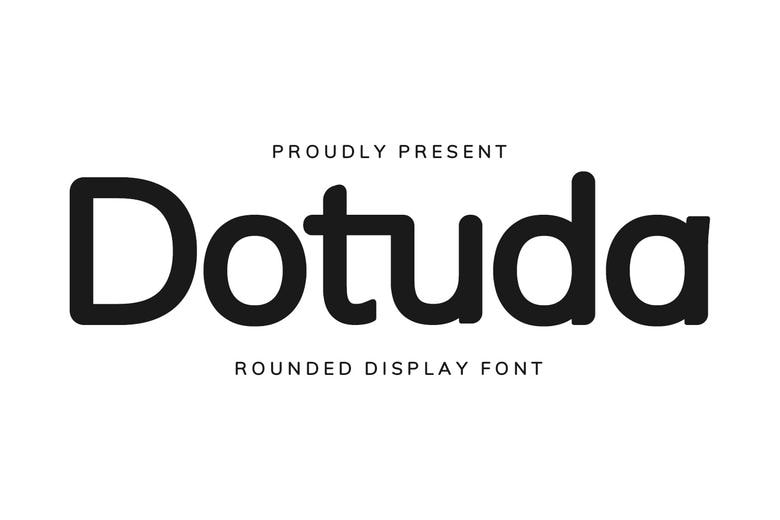
Dotuda Font
Dotuda is a vintage sans serif with rounded font. Dotuda is perfectly suited to branding, logos, magazines, films, websites, headlines, titles, captions, games, apps, posters, t-shirts, and more. The free version provides all uppercase and lowercase letters and a few special characters too.
Dotuda Sans Serif Font